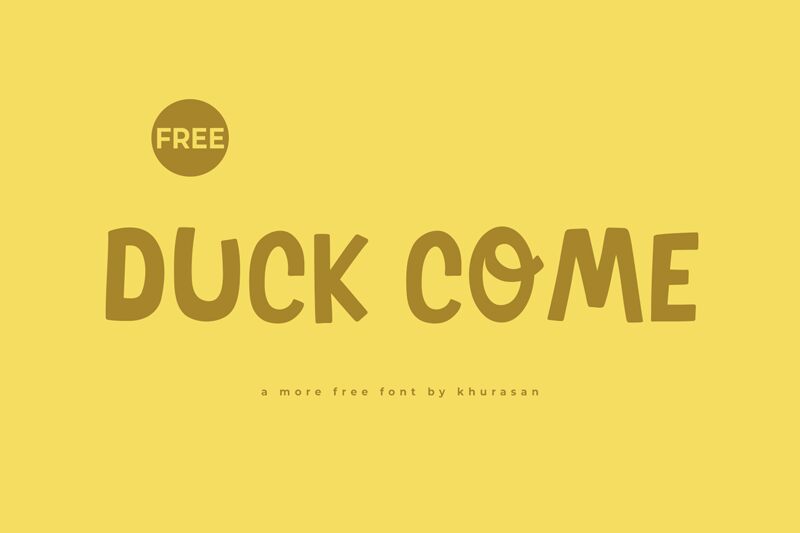
Duck Come
Duck Come is a whimsical, cartoon-inspired font that immediately grabs attention with its bold, exaggerated strokes. Designed by Khurasan, this display font exudes a playful, lighthearted energy, making it an ideal choice for a wide range of creative applications.
The letters' rounded, organic shapes and the distinctive, almost handwritten quality give the font a charming, hand-crafted aesthetic. This expressive typeface would shine in headlines, logos, and children's book illustrations, adding a touch of playfulness and appeal to any design.
Whether used for a quirky product packaging or a fun social media campaign, Duck Come's distinctive personality is sure to make a memorable impression.